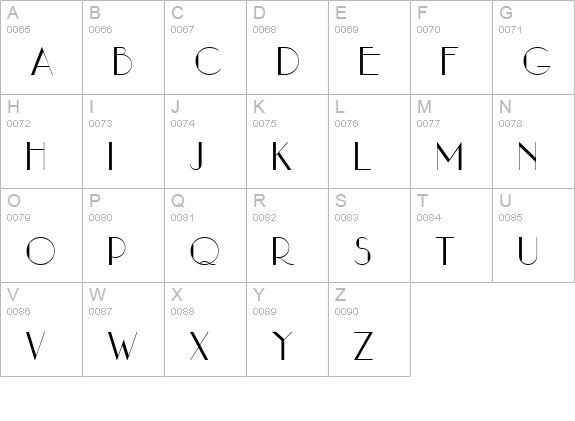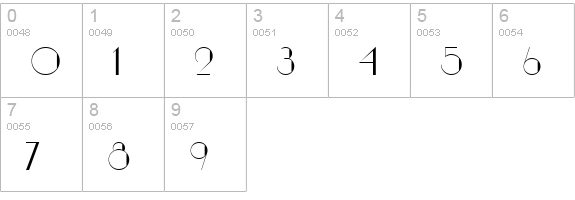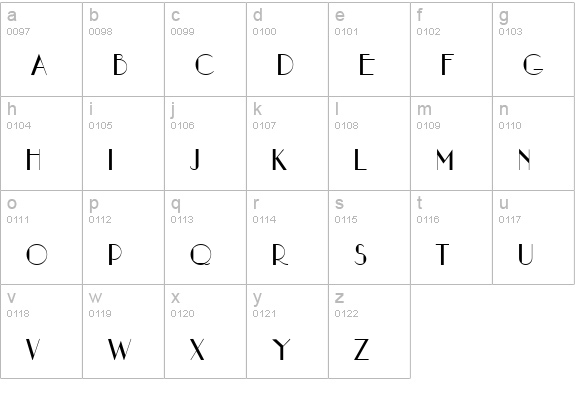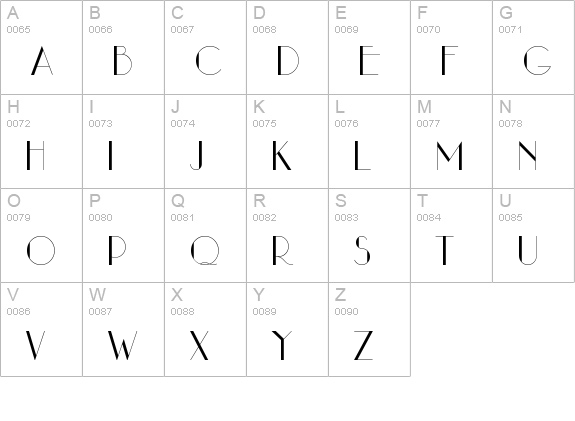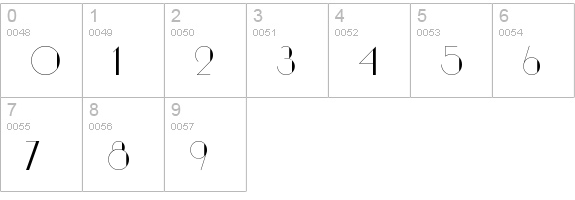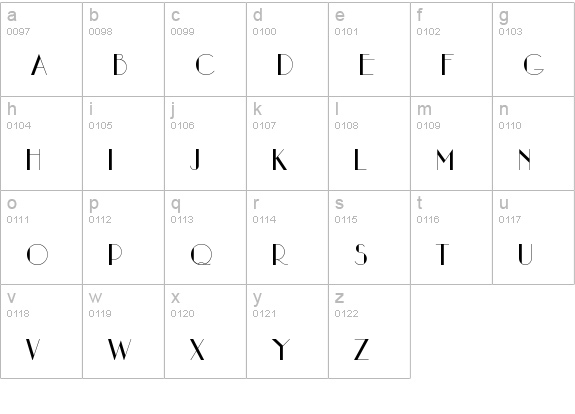
NouveauAsta Regular Font Details
NouveauAsta Regular is the standard, neutral variant in the NouveauAsta typeface family \xE2\x80\x94 well suited to general body text, paragraphs, and standard typographic work.
NouveauAsta Regular font is a sleek and modern typeface that exudes elegance and sophistication. With its clean lines and contemporary design, this font is perfect for a wide range of design projects, from branding to editorial design and everything in between. The versatility of NouveauAsta Regular font makes it a must-have for any designer looking to elevate their work to the next level. Whether you're creating a sleek logo, designing a striking poster, or crafting a stylish website, this font is sure to make a statement. Best of all, NouveauAsta Regular font is completely free to download at FontsMarket.com. That's right, you can add this stunning font to your collection without spending a dime. So why wait? Download NouveauAsta Regular font today and take your designs to new heights!